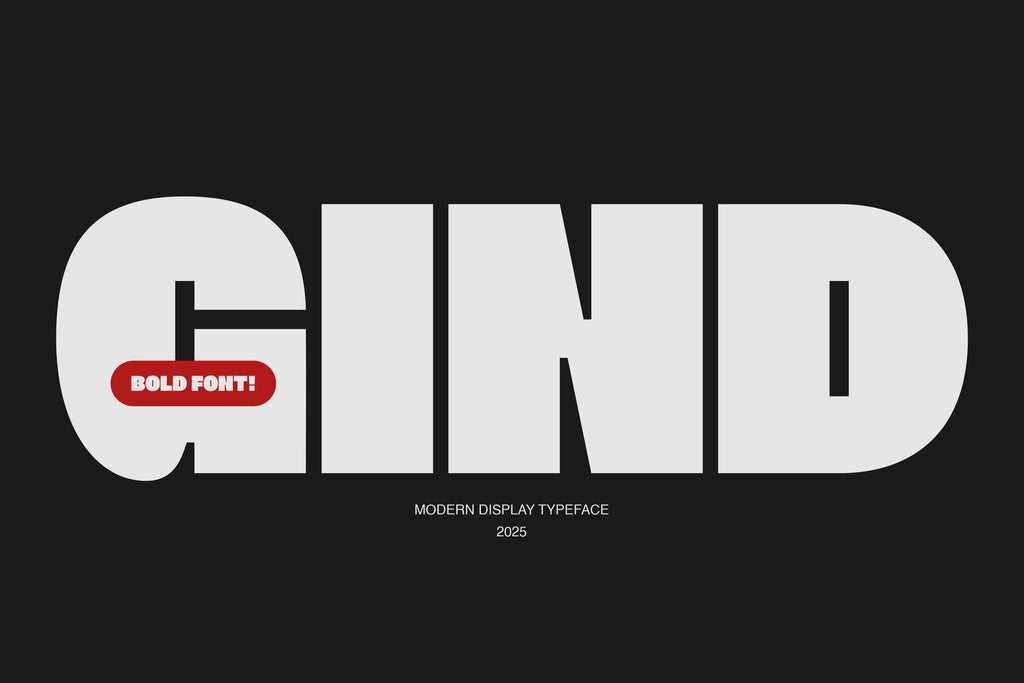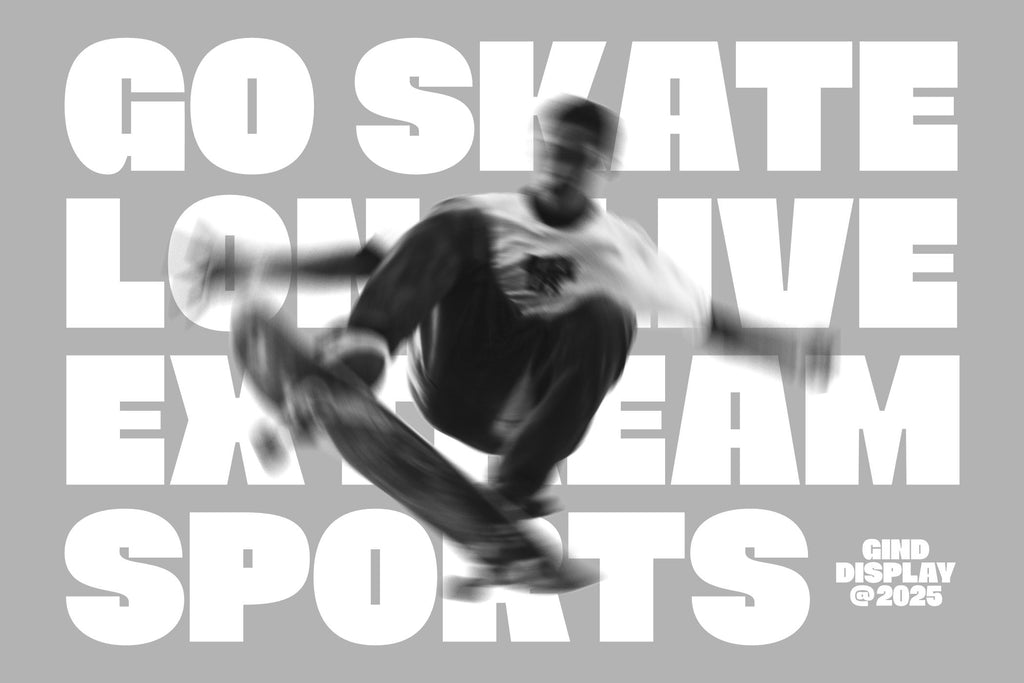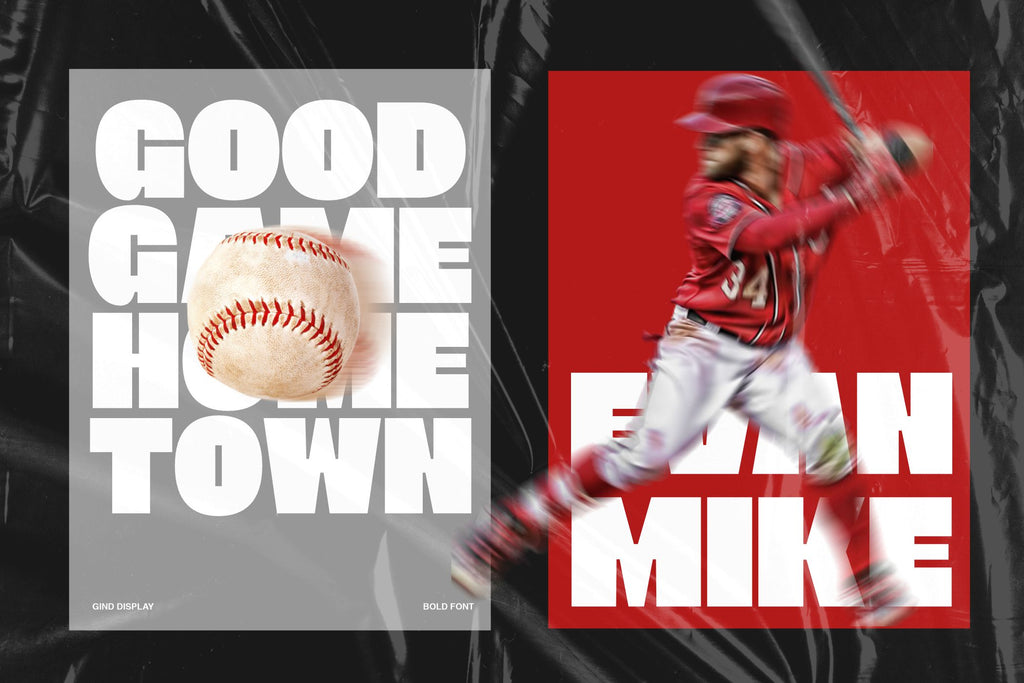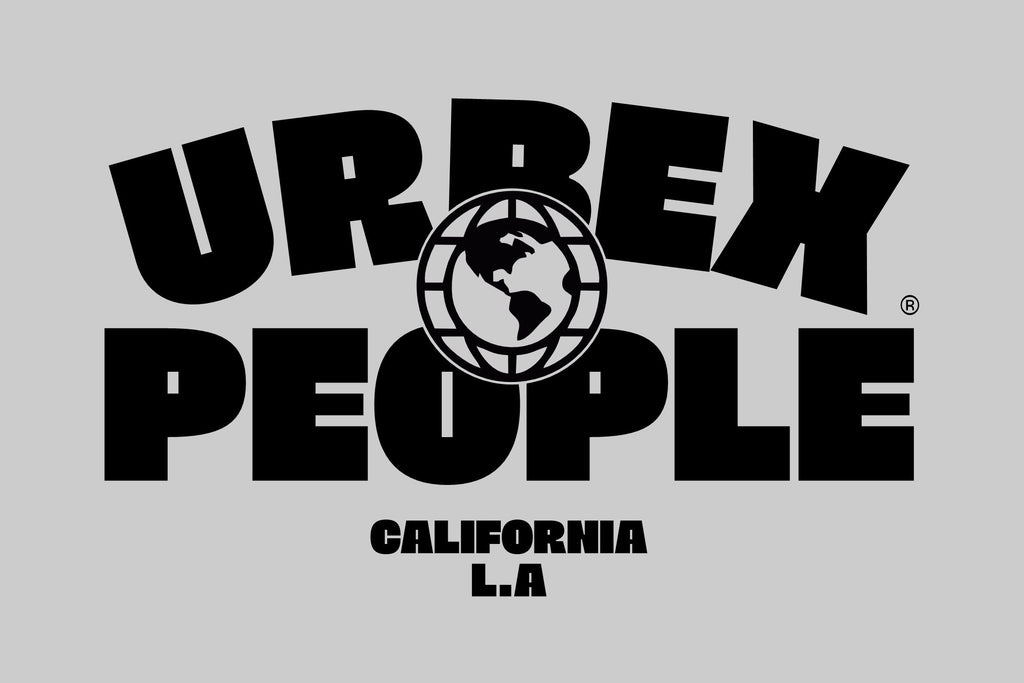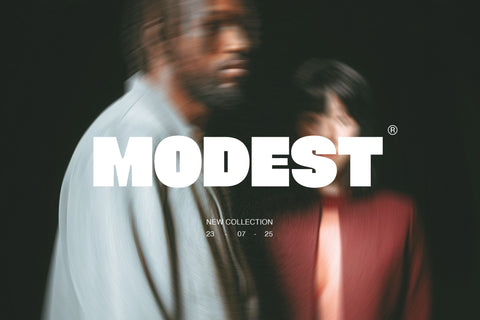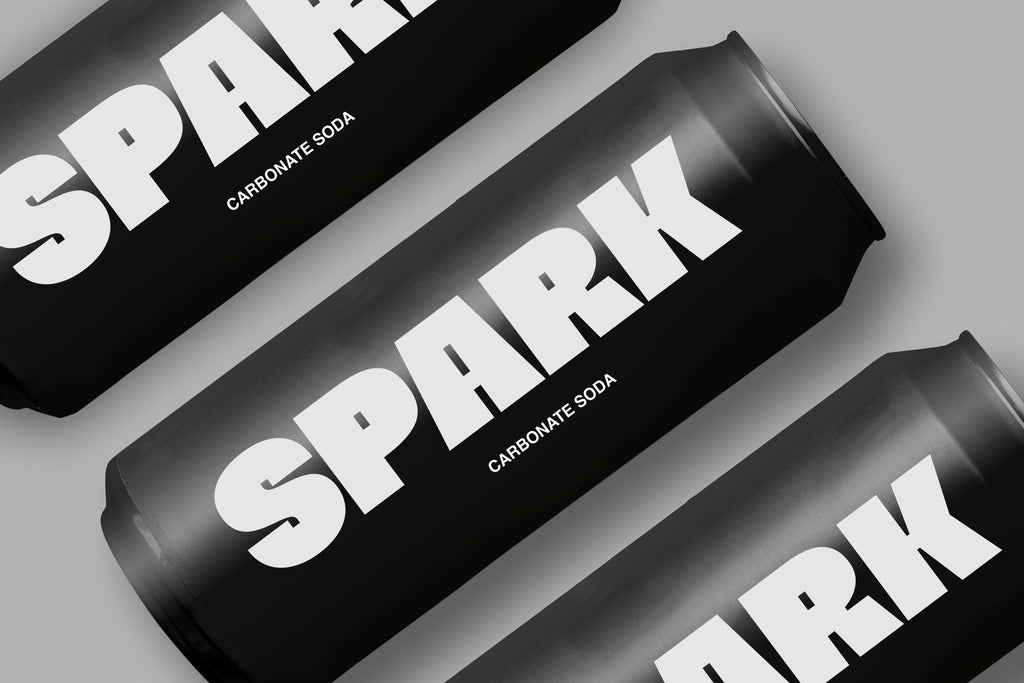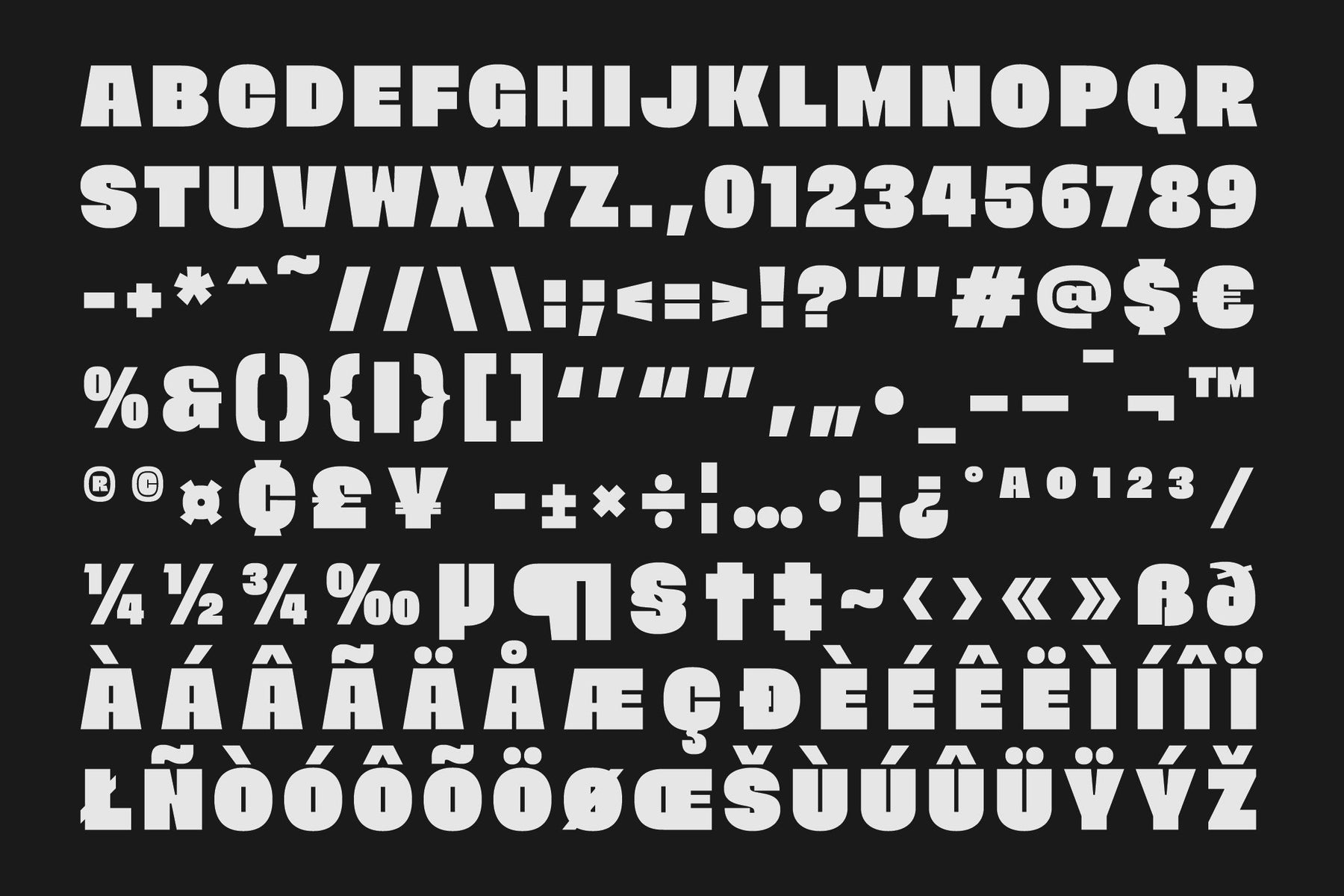
Gind
Gind – Sans Modern Bold Font created by Rar Typeworks
Gind is a display font with modern sans serif typeface designed in bold uppercase only. Built with precise details, it delivers a strong, confident, and contemporary look.
Perfect for titles, branding, posters, and any design that requires a striking and highly readable display.